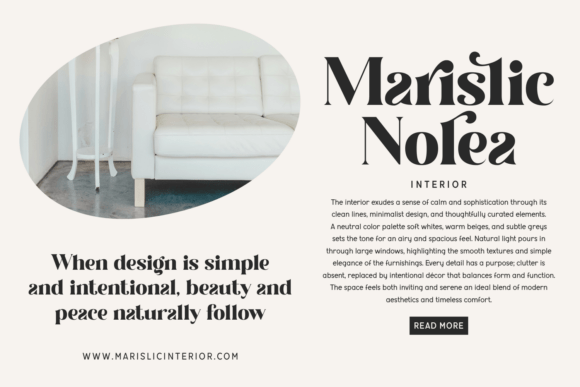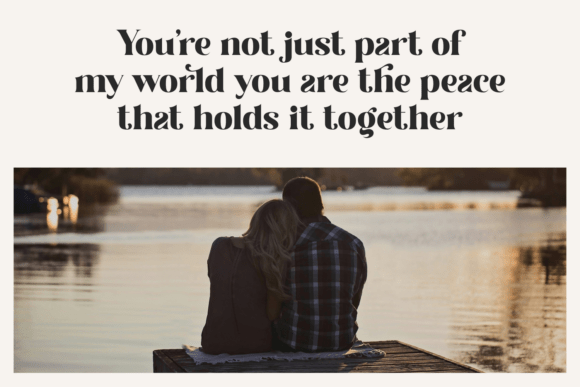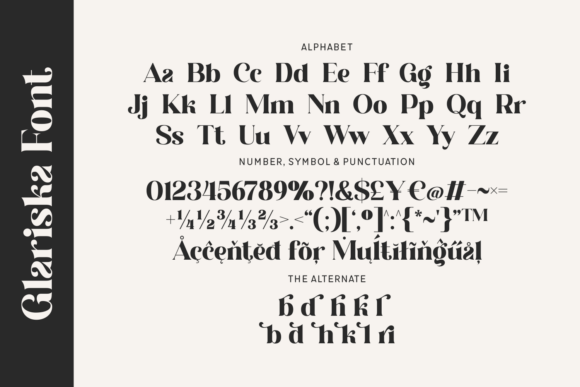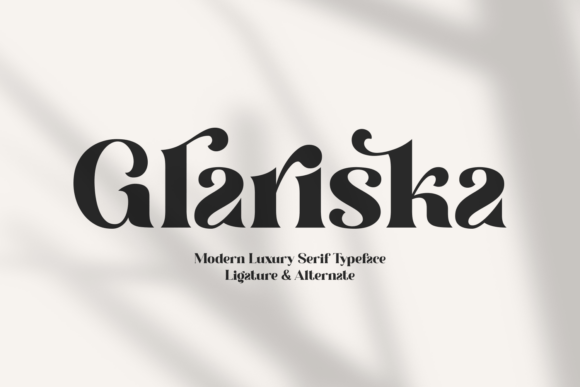
Introducing Glariska Font: Elevate Your Design with Luxury and Sophistication
In the world of typography, a font can make or break the visual impact of a design project. For those seeking to create a statement, Glariska Font is a bold and luxurious modern serif typeface that is crafted for high-impact visual storytelling. With its unique ligatures and elegant alternates, Glariska combines dramatic curves and artistic flair to create a font that’s both fashionable and expressive.
The Art of Glariska: A Masterpiece of Modern Serif Typography
Glariska is more than just a font – it’s an experience. Its bold and luxurious design makes it perfect for upscale branding, editorial design, packaging, and creative headlines. The font’s unique ligatures and elegant alternates add a touch of sophistication and elegance to any project, making it ideal for designers and crafters who want to create something truly special.
Key Features of Glariska Font
• Bold and Luxurious Design: Glariska’s modern serif design makes it perfect for high-impact visual storytelling.
• Unique Ligatures: The font’s unique ligatures add a touch of artistic flair to any project.
• Elegant Alternates: Glariska’s elegant alternates provide designers with a range of options to create a truly unique look.
• Dramatic Curves: The font’s dramatic curves add a touch of sophistication and elegance to any project.
• Fashionable and Expressive: Glariska is both fashionable and expressive, making it perfect for designers who want to create a statement.
Perfect for Upscale Branding and Editorial Design
Glariska Font is ideal for upscale branding, editorial design, packaging, and creative headlines. Its luxurious design and elegant alternates make it perfect for:
• Logo Design: Create a bold and luxurious logo that makes a statement.
• Editorial Design: Use Glariska to create elegant and sophisticated editorial designs.
• Packaging Design: Add a touch of luxury to your packaging design with Glariska.
• Headlines: Create creative and eye-catching headlines with Glariska’s dramatic curves and artistic flair.
Why Choose Glariska Font?
With so many fonts available, why choose Glariska? Here are just a few reasons why Glariska Font stands out:
• Unique Design: Glariska’s unique design makes it stand out from other fonts.
• High-Impact Visual Storytelling: The font’s bold and luxurious design makes it perfect for high-impact visual storytelling.
• Elegant and Sophisticated: Glariska adds a touch of elegance and sophistication to any project.
• Fashionable and Expressive: The font is both fashionable and expressive, making it perfect for designers who want to create a statement.
Get Ready to Elevate Your Design with Glariska Font
If you’re looking for a font that will elevate your design and add a touch of luxury and sophistication, look no further than Glariska Font. With its unique ligatures, elegant alternates, and dramatic curves, Glariska is the perfect choice for designers and crafters who want to create something truly special.